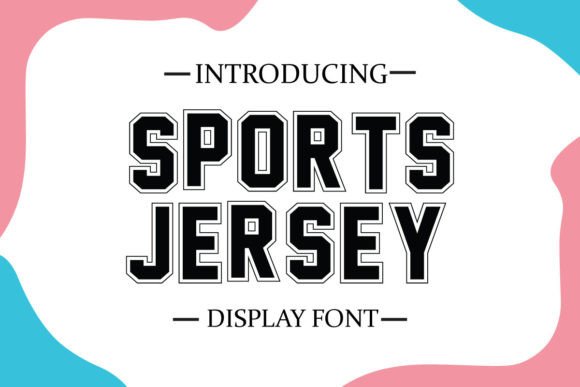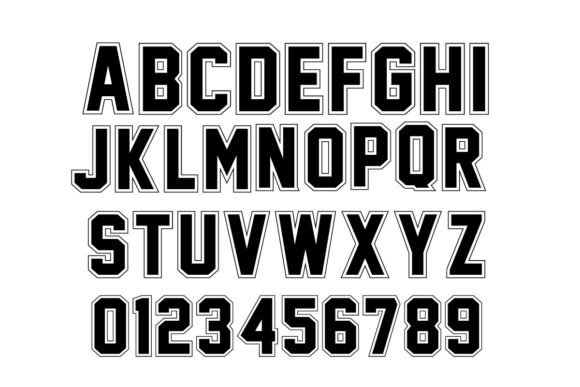
Sports Jersey Font
Sports Jersey Design is a modern and bold display font. Suitable for sports design, team, jersey, league, movie, documenter, film, logo, poster, game, book cover, headlines, title, and many more projects.